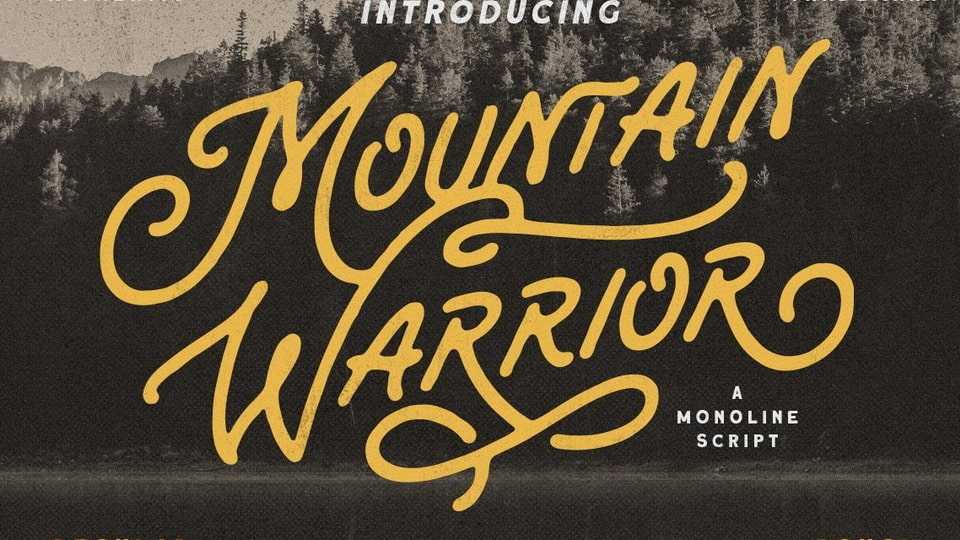
Download Mountain Warrior font, a monoline script typeface with a touch of retro look and feel. Mountain Warrior font perfectly made to be applied especially in logo, headline, signage, labels, magazines, books, packaging, fashion or any type of advertising purpose.